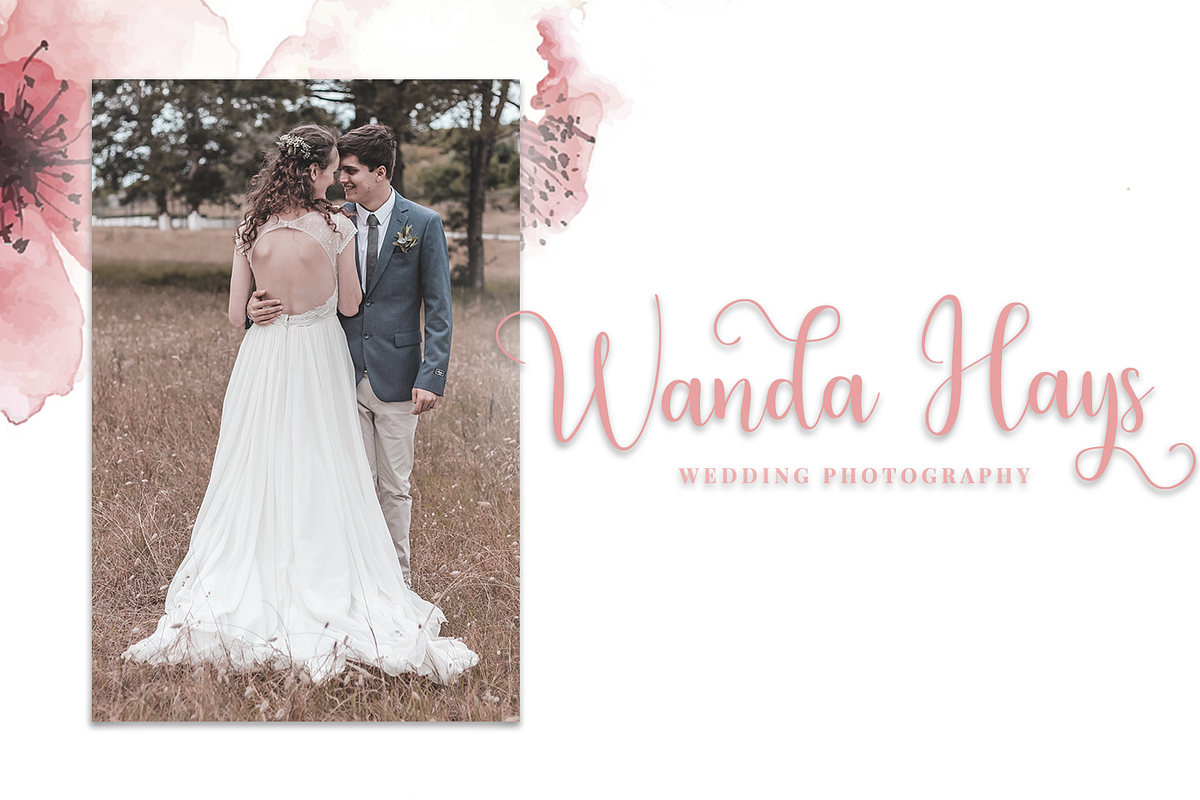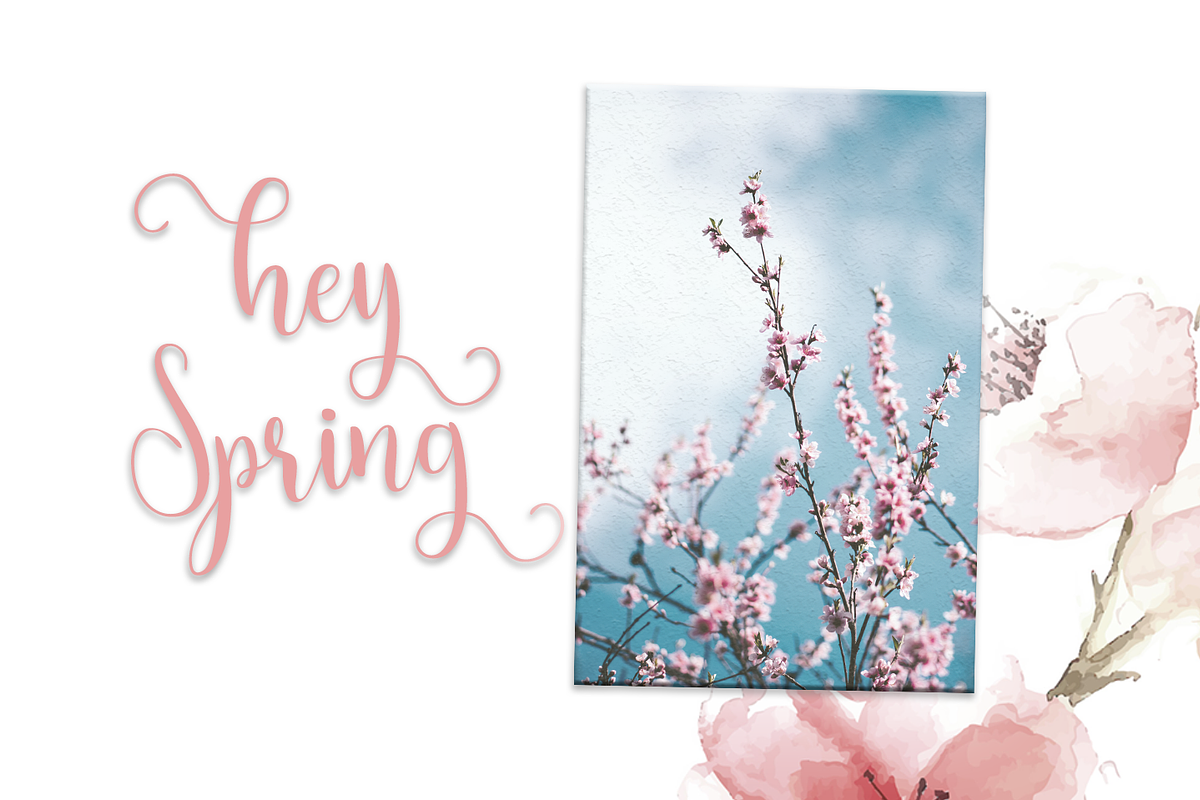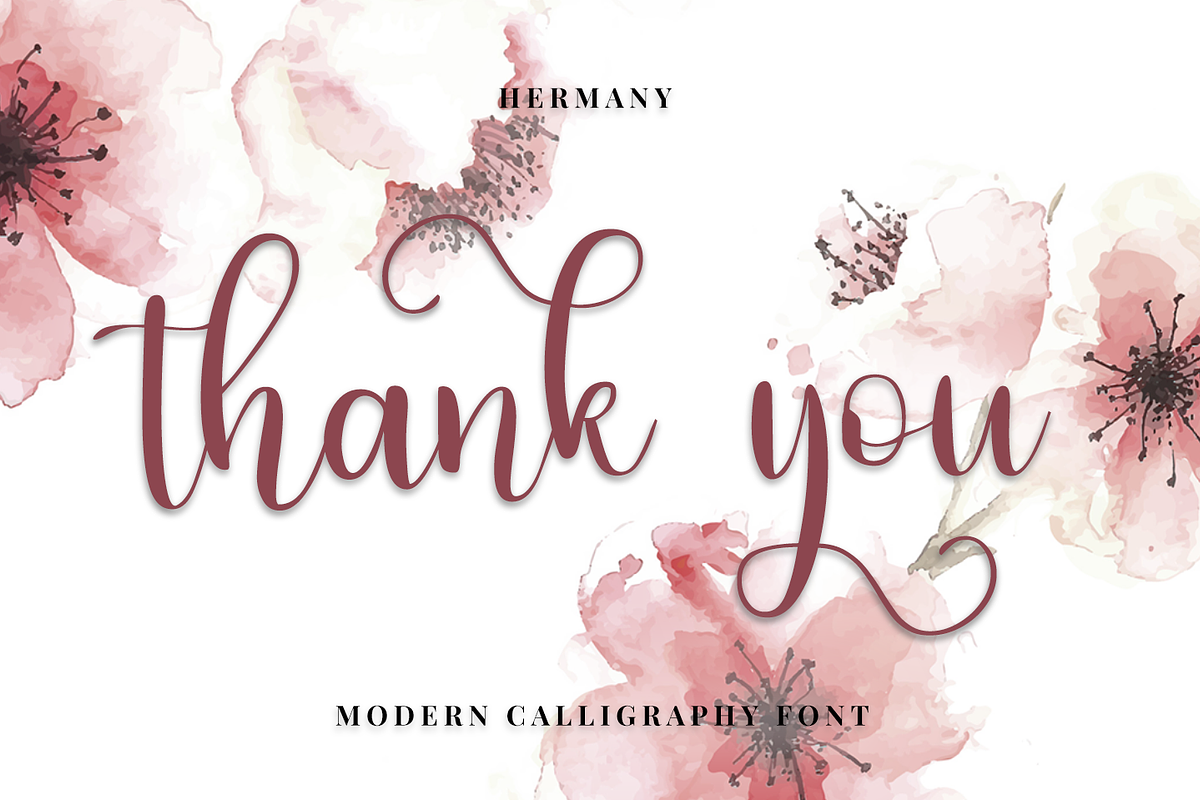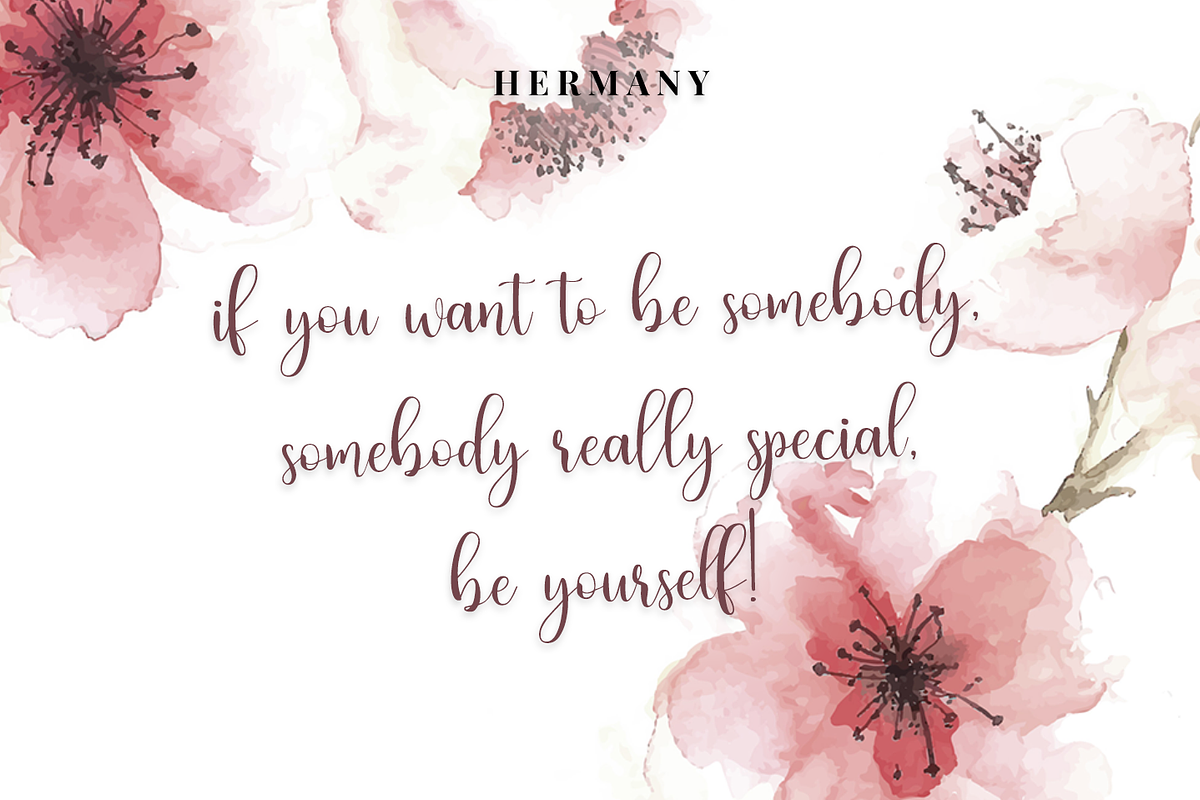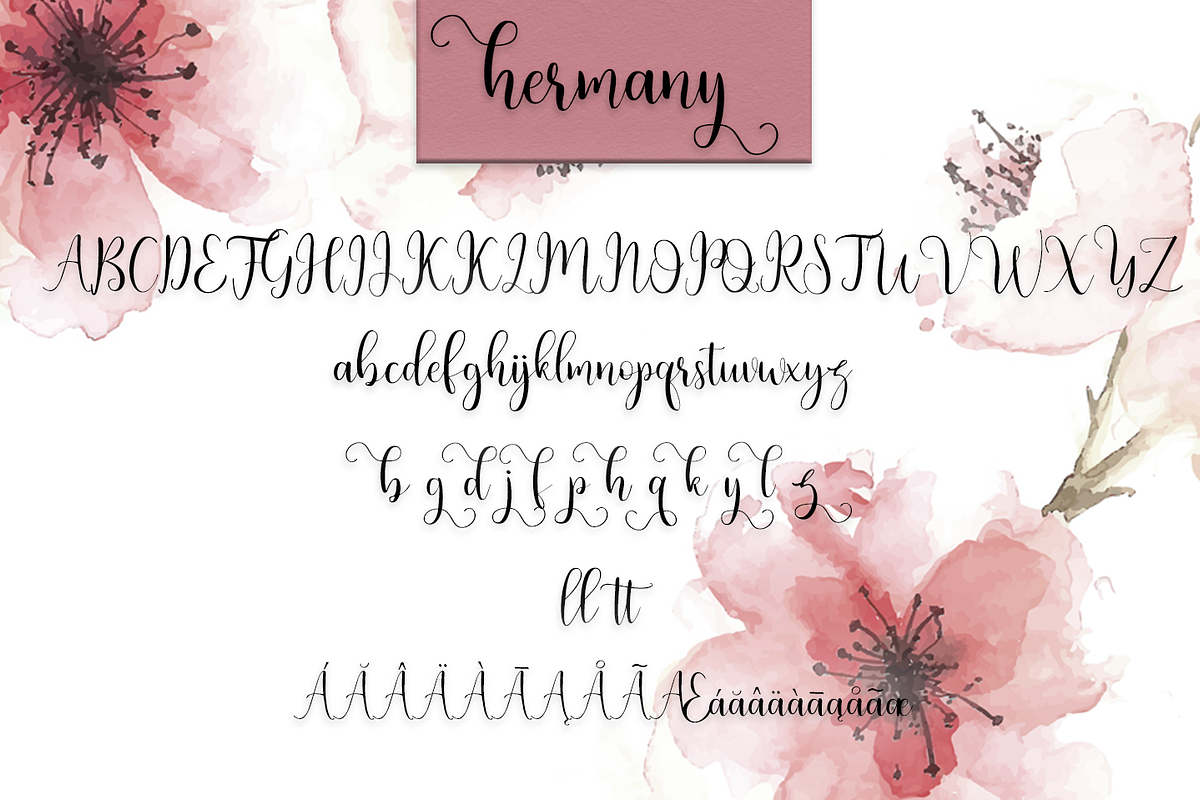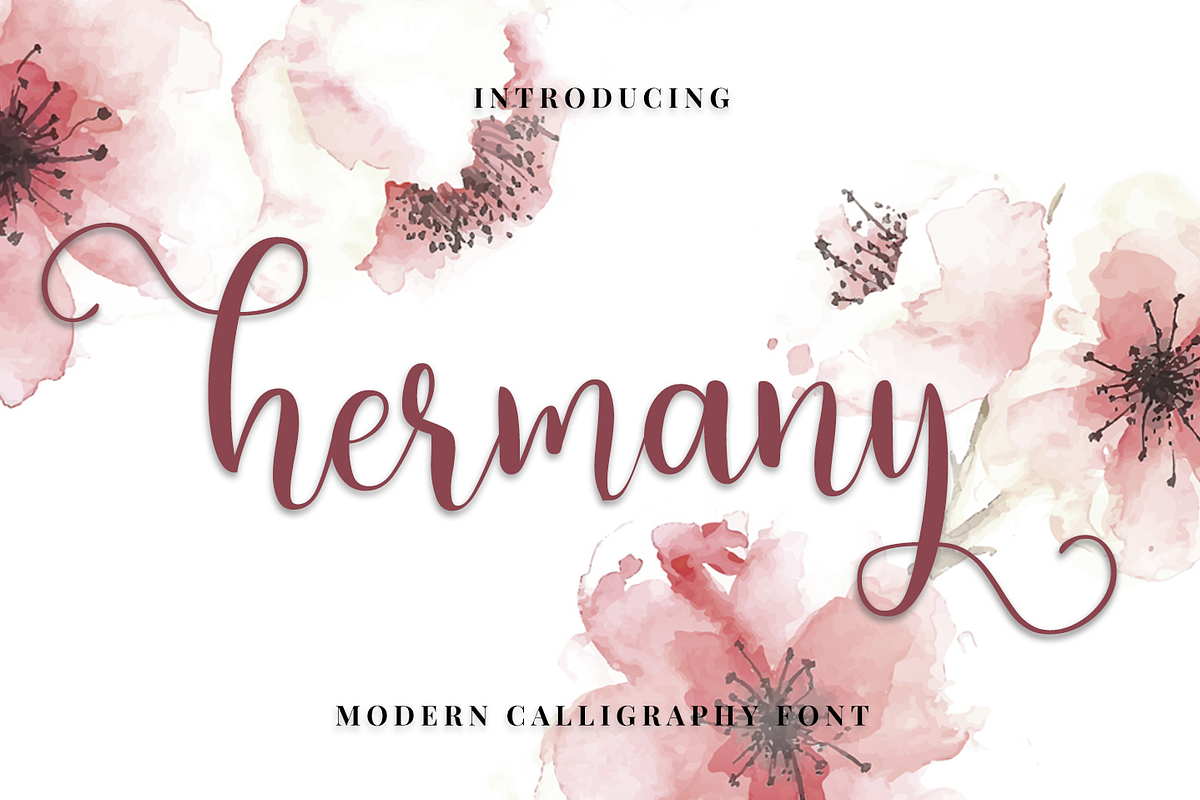
HERMANY//SCRIPT FONT
HERMANY - a new fresh handmade calligraphy font.
Very suitable for greeting cards, branding materials, business cards, quotes, posters, and more!This font are perfect for wedding postcard. Or you can create perfect and unique design of your logo, blog, stationery, marketing, magazines and more :)
Ligatures, Alternates, Multilingualcharacters (AÀÁÂÃÄÅCÇDÐEÈÉÊËIÌÍÎÏNÑOØÒÓÔÕÖUÙÜÚÛWYÝŸŸ ÆŒßÞàáâãäåæçèéêëìíîïðñòóôõöøùúûüýÿ)
- FEATURES Ligatures, Alternates, Multilingualcharacters (AÀÁÂÃÄÅCÇDÐEÈÉÊËIÌÍÎÏNÑOØÒÓÔÕÖUÙÜÚÛWYÝŸŸ ÆŒßÞàáâãäåæçèéêëìíîïðñòóôõöøùúûüýÿ) INCLUDE